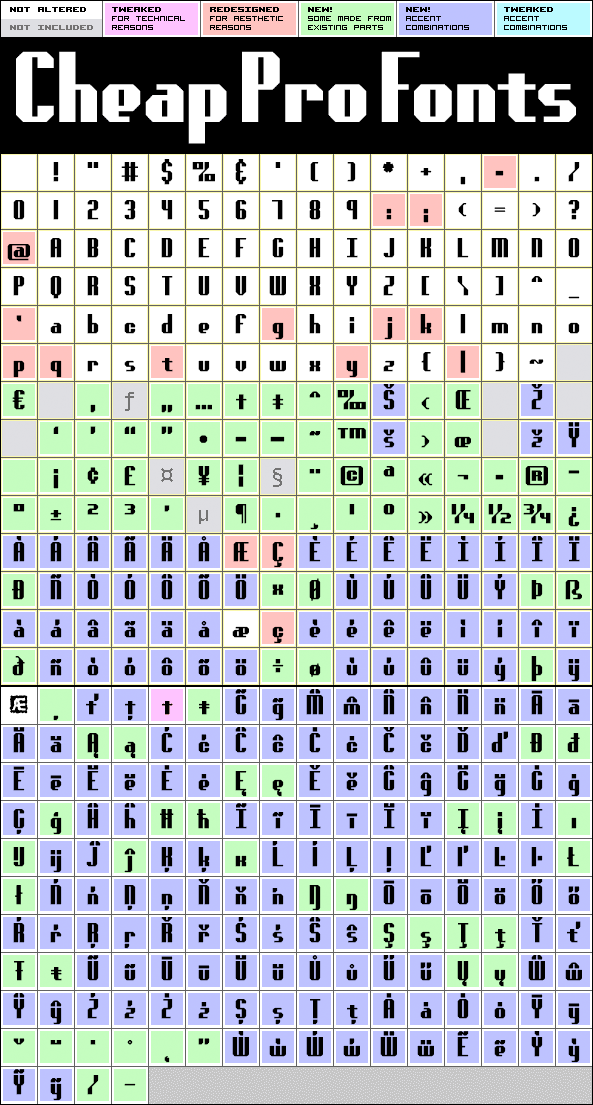
Genotype S BRK Pro
Genotype S BRK Pro by Brian Kent
Brian Kent
OpenType features:
Alternate letterforms
The perfect companion for the previous release: Genotype H BRK Pro (The H stands for Hollow and the S stands for Solid ;). Can be used as a fill for its companion (using layers), but is also quite a useable font on its own.
Genotype S BRK Pro is a professionally reworked font that contains an extended character set for setting text in 65 languages requiring more than the basic A-Z!